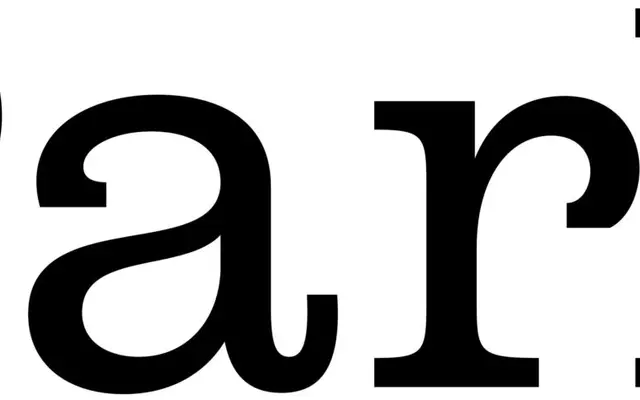
ES Park
Extraset · Xavier Erni, Lisa Schultz
ES Park specimen from Extraset
A slab serif in eight weights drawing on Clarendon and American Typewriter, with mini-serif terminals and a round-terminal OpenType alternate.
Designed by Xavier Erni of Neo Neo and developed by Lisa Schultz, ES Park sits between baroque warmth and mechanical precision through curves referencing Clarendon and American Typewriter. Its serifs are slightly narrower than typical slabs, and contrast increases with weight, keeping lighter styles readable at small sizes while heavier cuts carry real impact. An OpenType stylistic set swaps the default mini-serif terminals for softer, rounder forms, and a variable font is available to purchasers of the complete family.
The foundry explicitly classifies it as a Slab Serif (Mechanistic/Antique/Egyptian), with thick block-like serifs drawn slightly narrower than typical slabs and curves referencing Clarendon and American Typewriter.